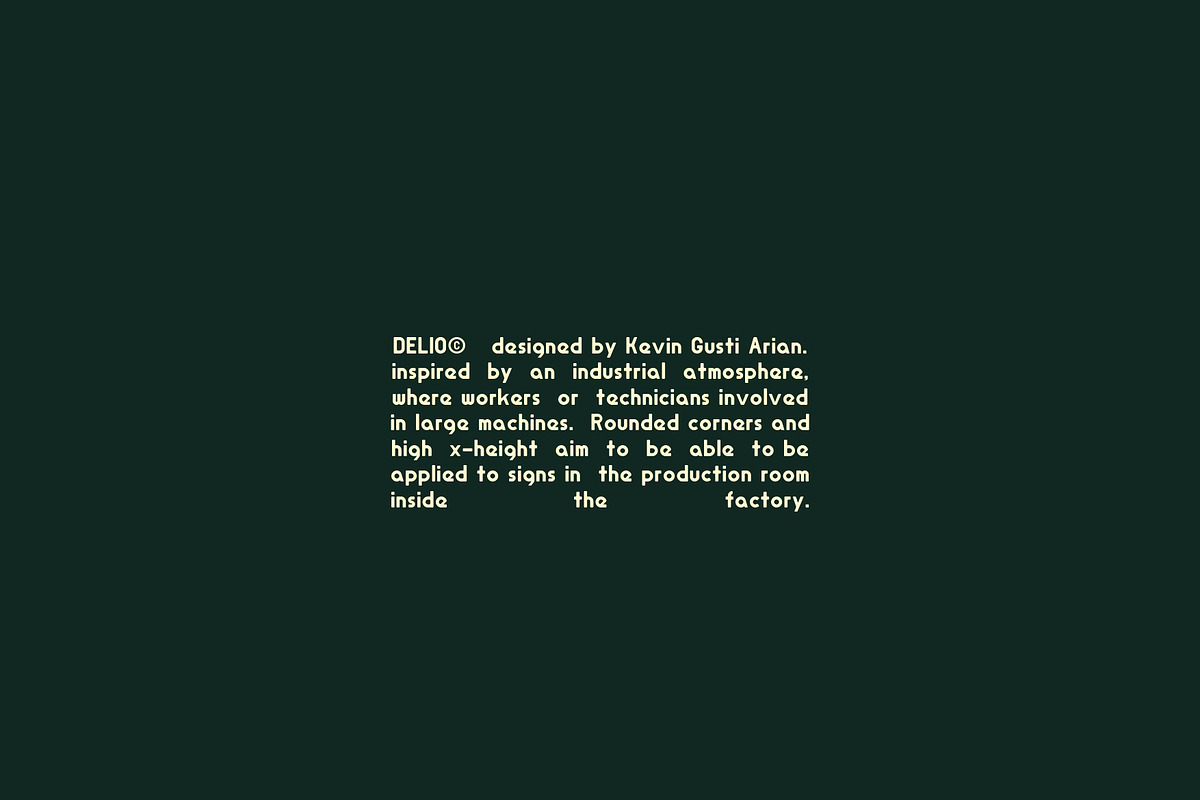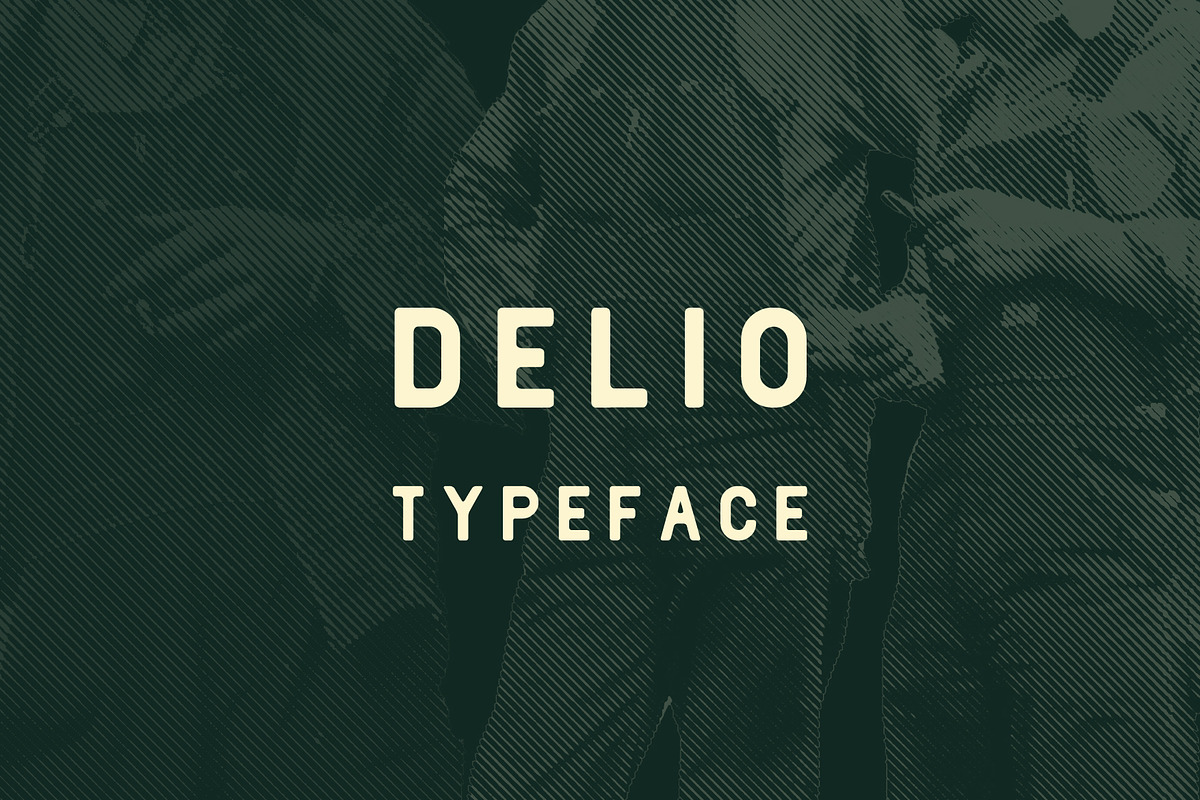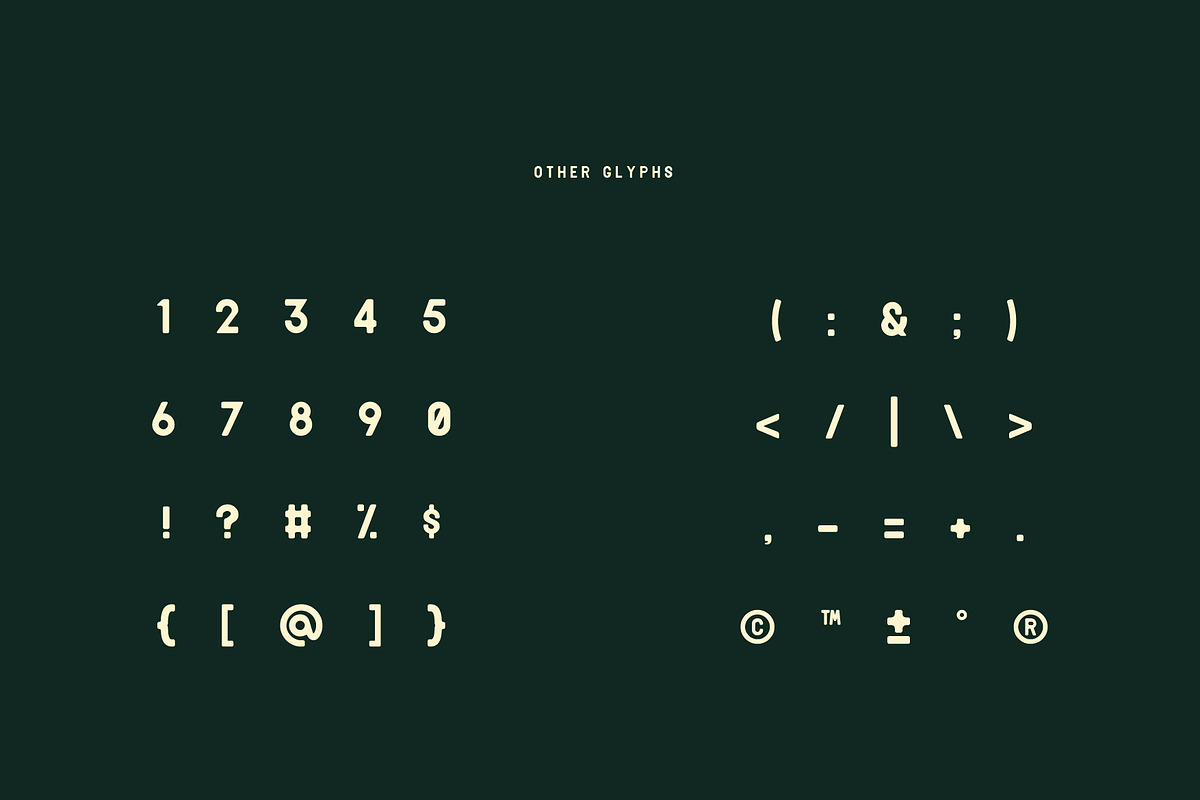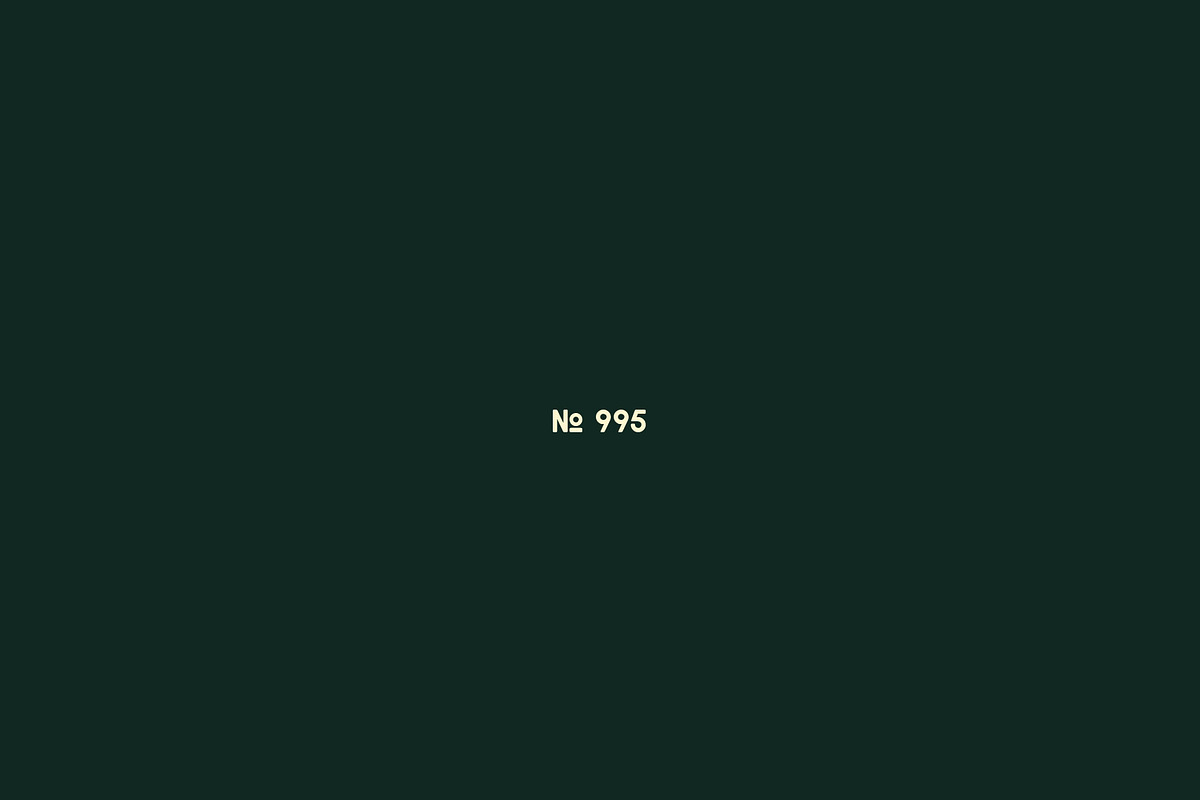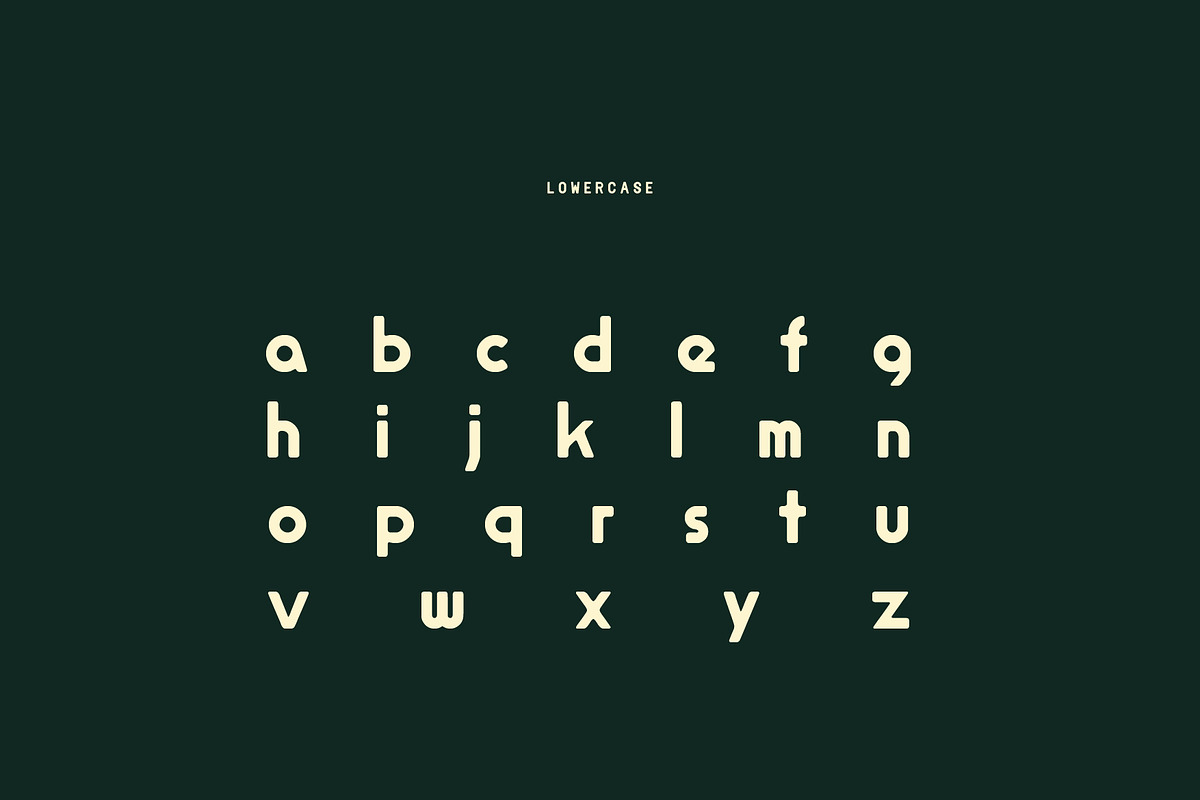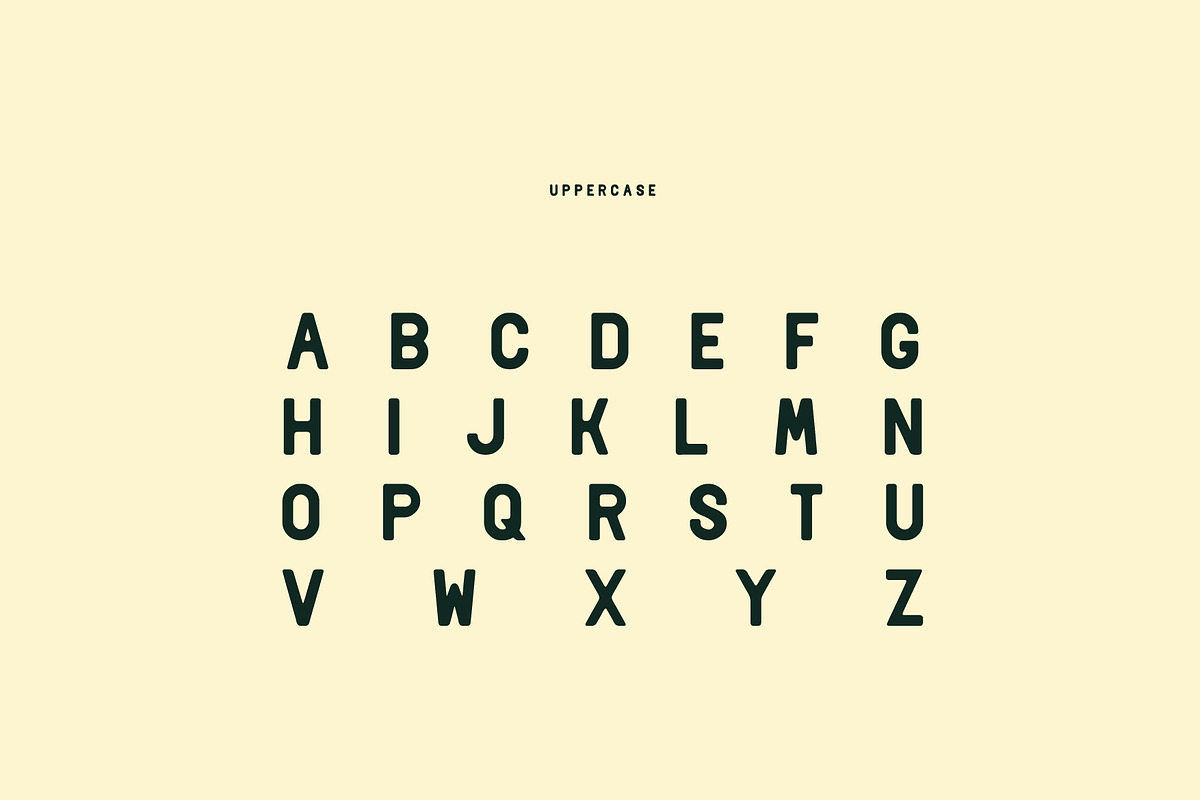
Introducing DELIO© typeface by Kevgusar
DELIO© was designed by me, inspired by an industrial atmosphere, where workers or technicians involved in large machines. Rounded corners and high x-height aim to be able to be applied to signs in the production room inside the factory.